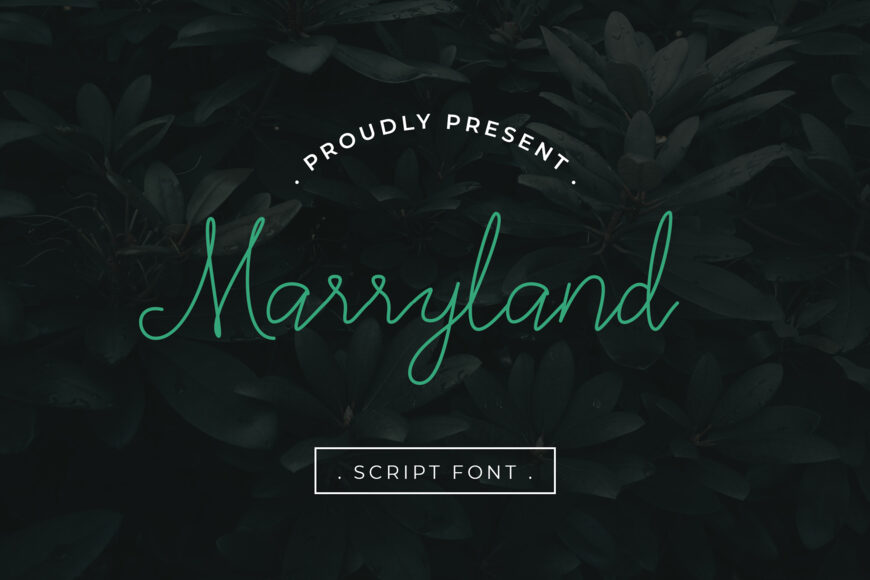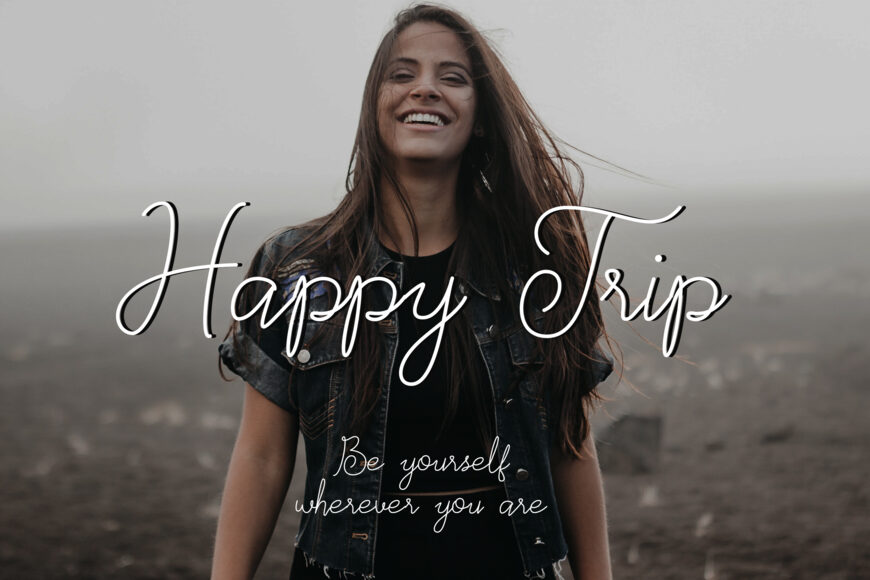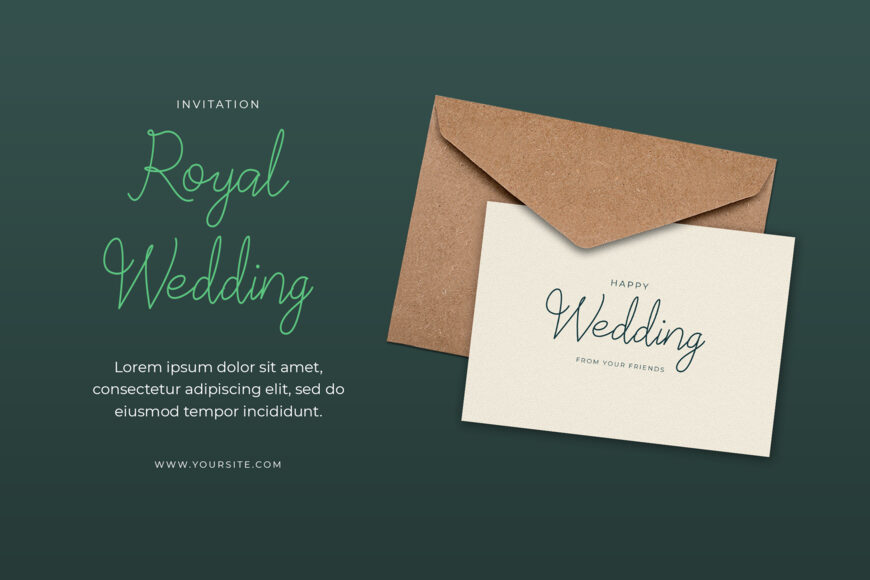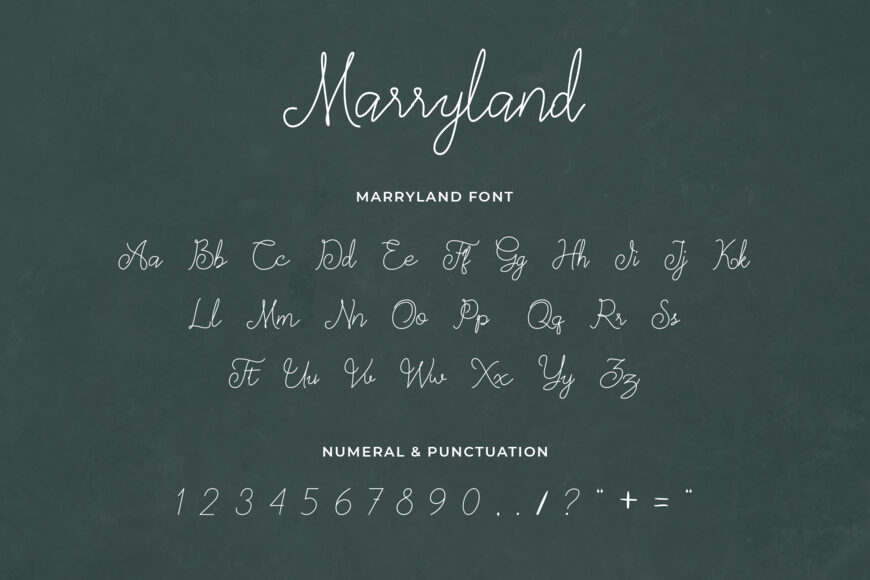
Marryland is a modern script font that is readable, thin and stylish. It is defined by smooth curves and is perfect for fashion branding or editorial designs. Add it confidently to your projects, and you will love the results.